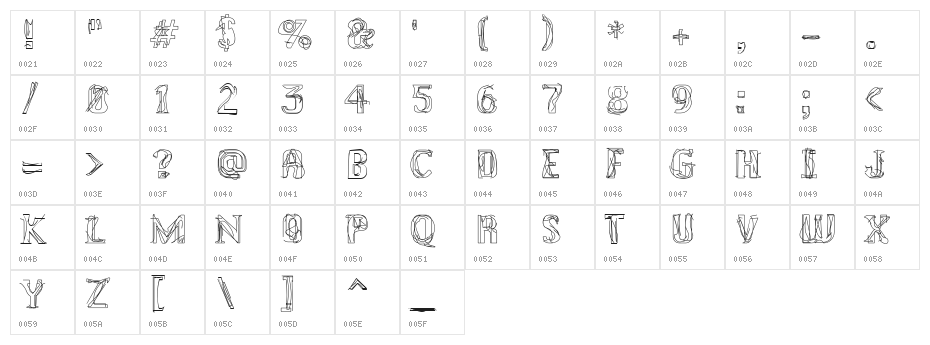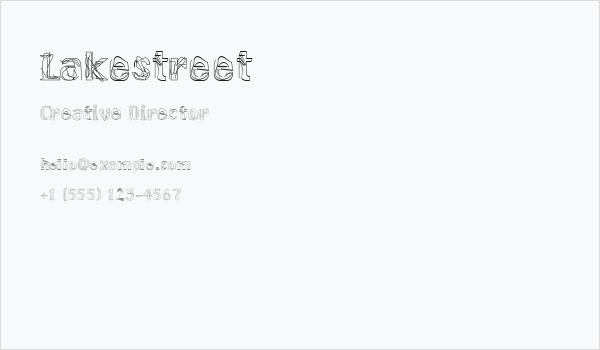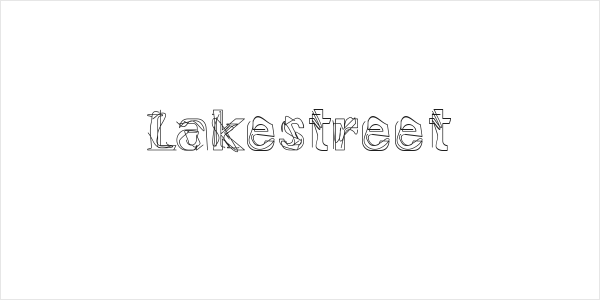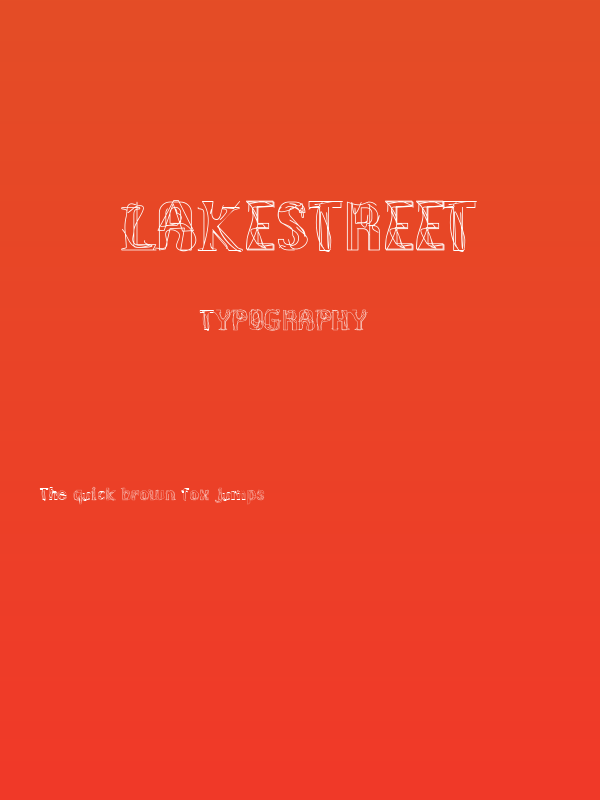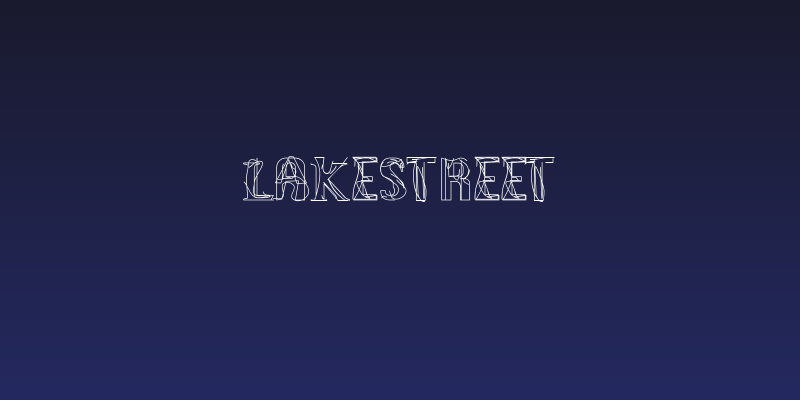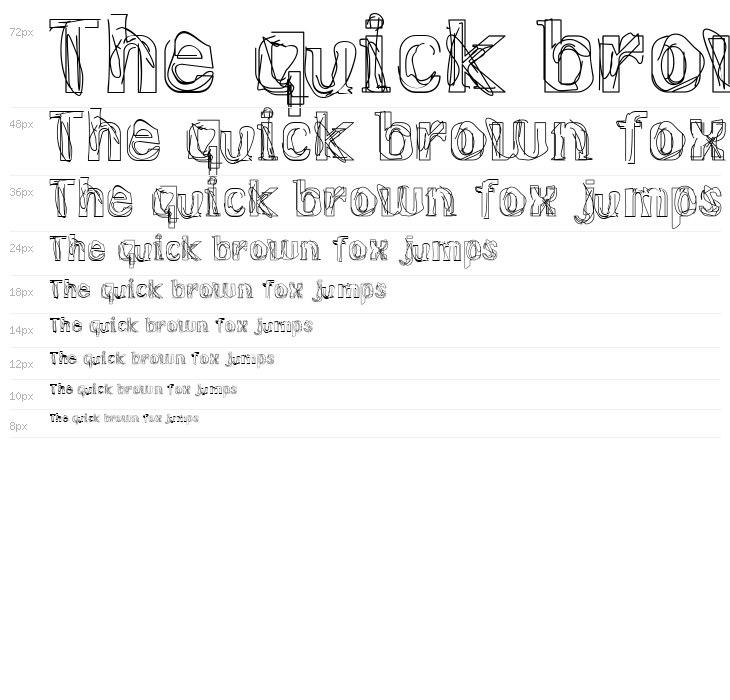
Lakestreet Font
Lakestreet Description
This font features a unique and artistic design with overlapping lines and geometric shapes, creating a sense of depth and complexity. The letters are constructed with a series of intersecting strokes, giving them a hand-drawn, sketch-like appearance. This style is both modern and abstract, making it stand out in any design project. The uppercase and lowercase letters maintain a consistent style, while the numbers and special characters follow the same intricate pattern. This font is ideal for creative and unconventional projects where a bold statement is needed.
Overall StyleModern, Artistic
Use CaseHeadlines, Logos, Artistic projects
Proposed ProjectsIdeal for album covers, posters, artistic branding, and modern art installations.